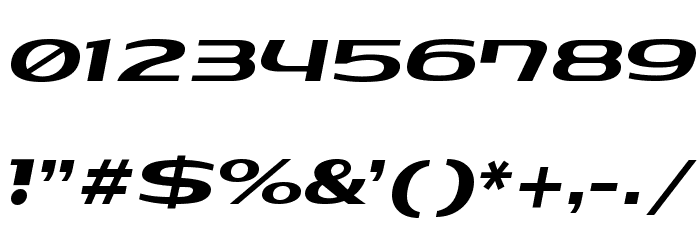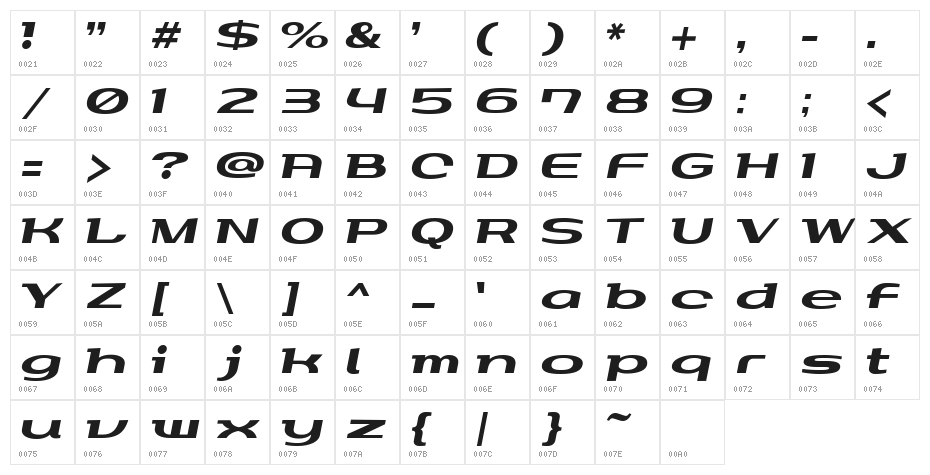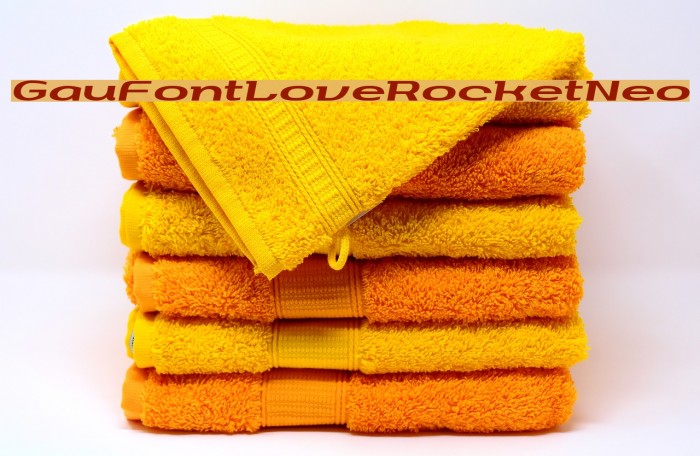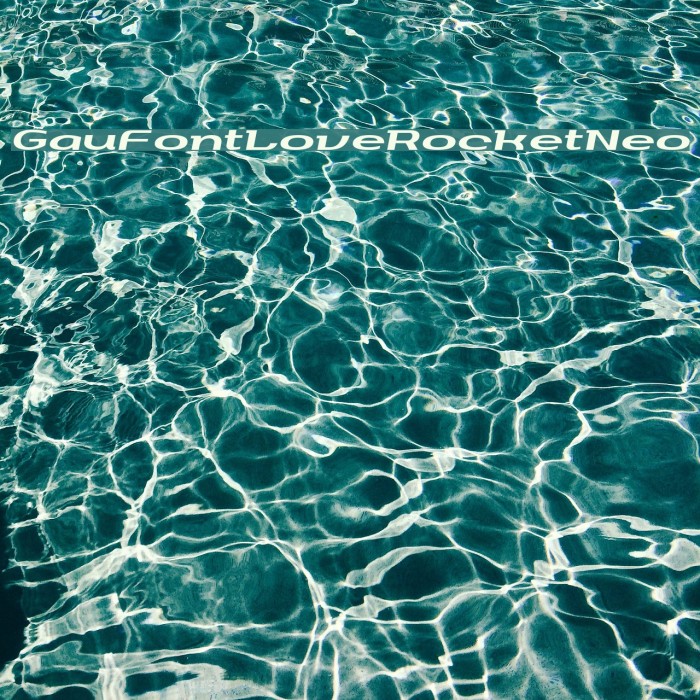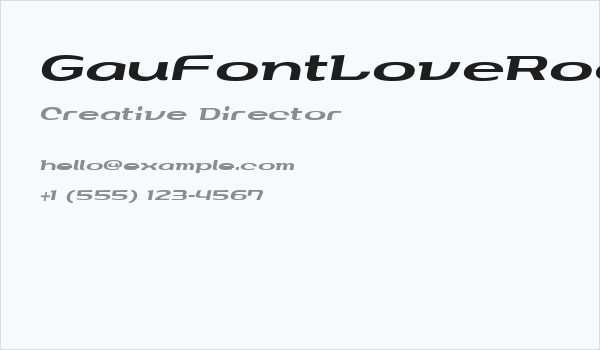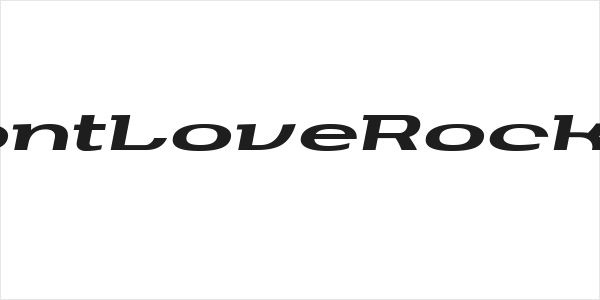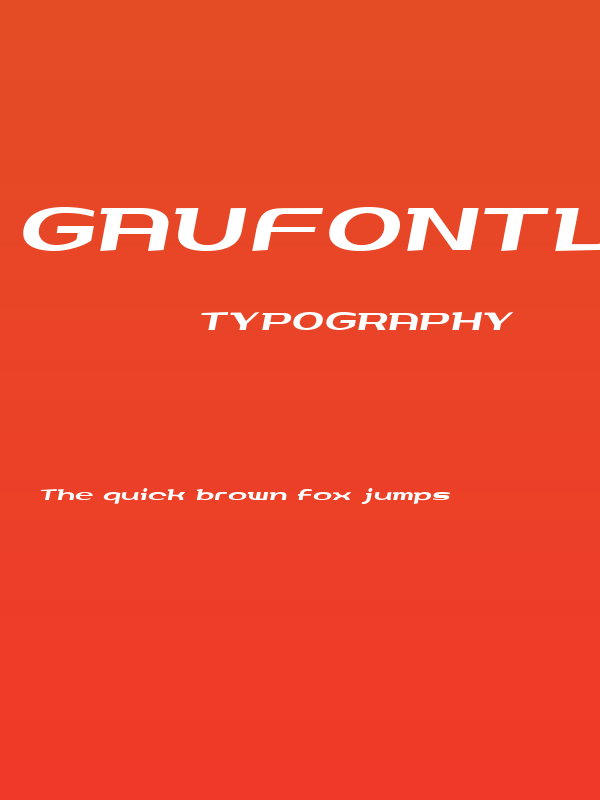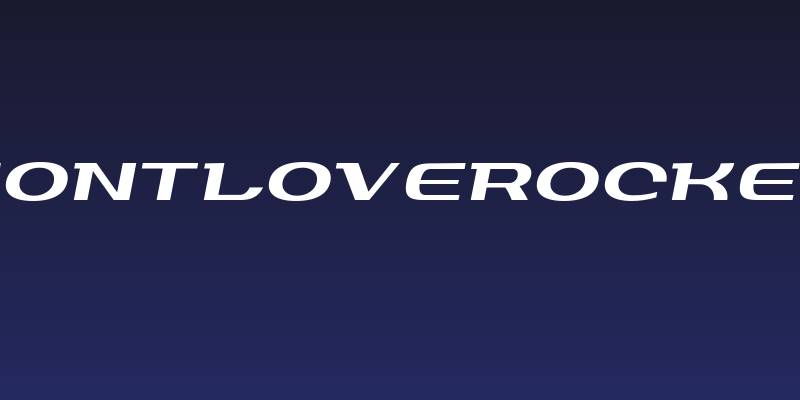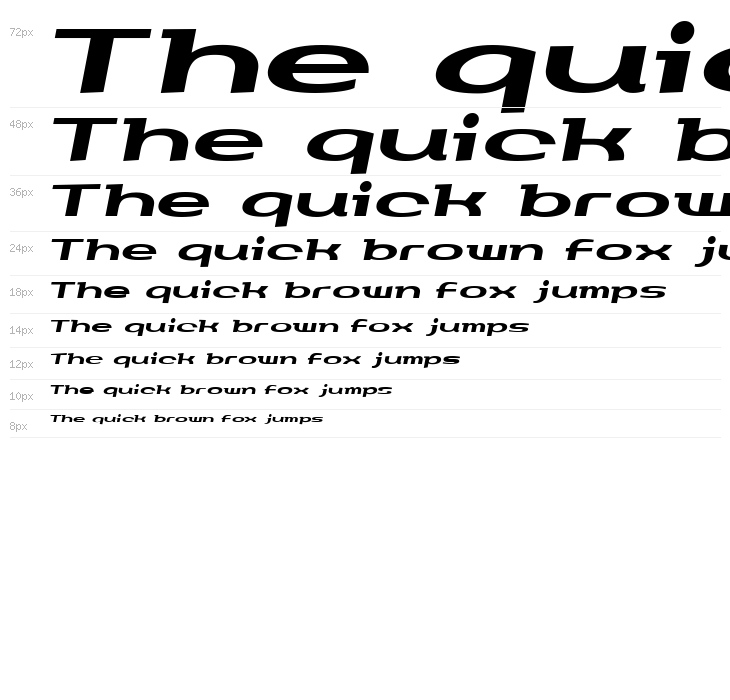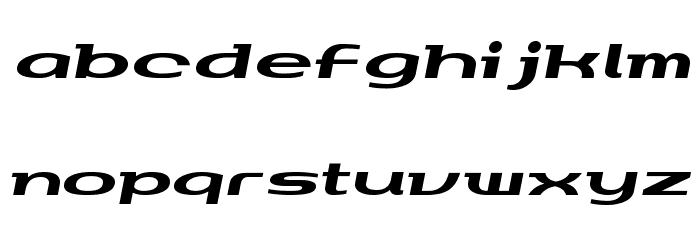
GauFontLoveRocketNeo Font
GauFontLoveRocketNeo Description
This font exhibits a sleek, modern design with a futuristic flair. The characters are slightly italicized, giving a sense of motion and dynamism. The strokes are smooth and consistent, with a medium contrast that adds to its readability. The overall style is clean and minimalistic, yet it maintains a distinctive personality through its unique curvature and angles. The numbers and special characters follow the same design principles, ensuring uniformity across all elements. This font is ideal for projects that require a contemporary and stylish look.